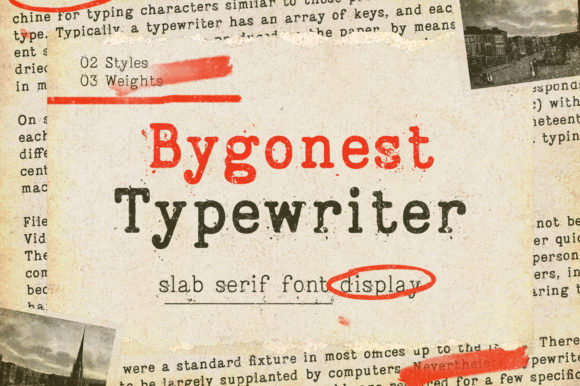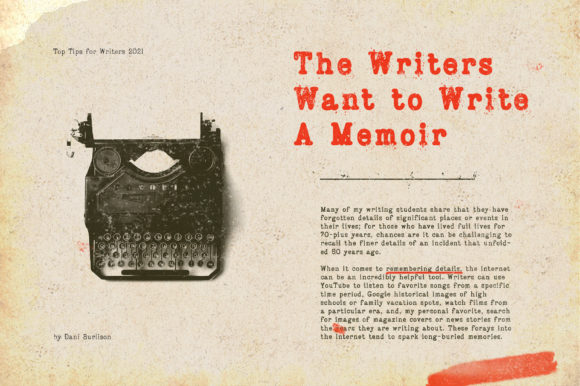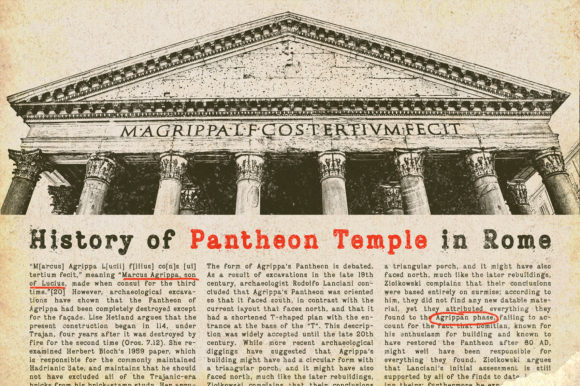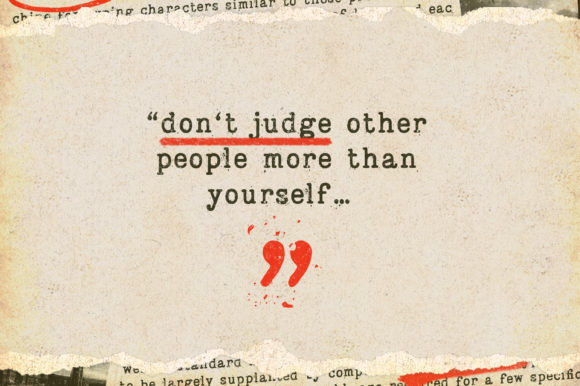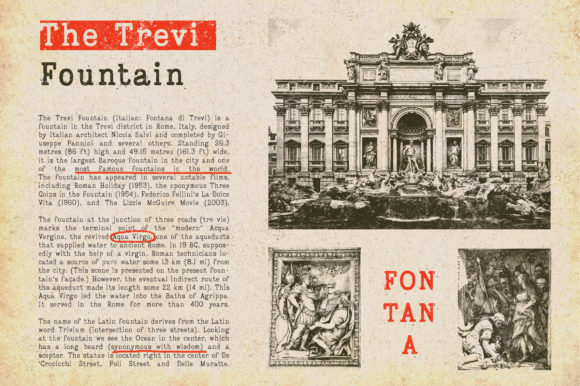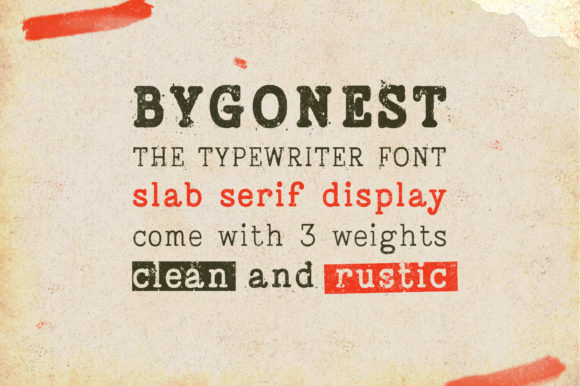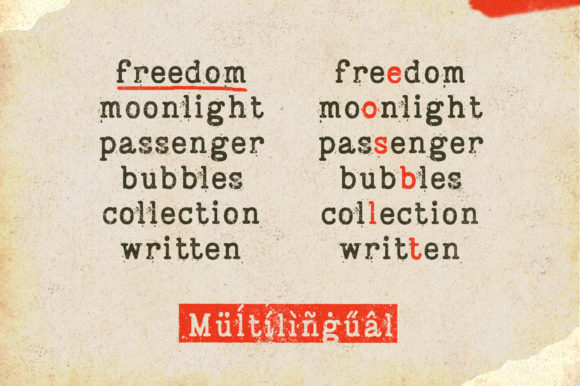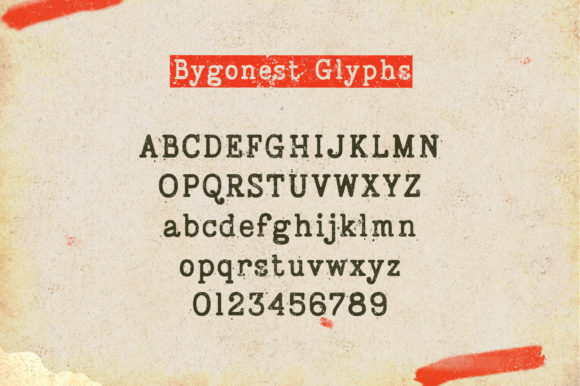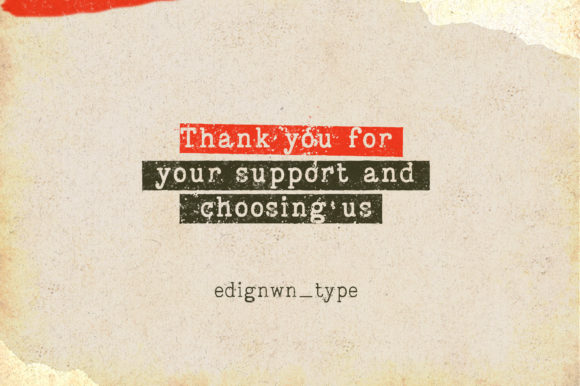
Bygonest
Bygonest: A Vintage and Rustic Slab Serif Font
Bygonest is a distinctive slab serif font that combines vintage styling with a rustic aesthetic. This typeface offers designers a powerful tool for creating impactful typography with a nostalgic touch across various design projects.
Key Features of Bygonest
• Vintage Style: Incorporates design elements reminiscent of classic typography
• Rustic Aesthetic: Offers a weathered, handcrafted look
• Balanced Design: Features a well-proportioned structure, neither too thin nor too thick
• Varied Character: Provides diverse letterforms for added visual interest
• Slab Serif Structure: Maintains the characteristic thick, rectangular serifs typical of slab serif fonts
• Enhancement Quality: Designed to elevate the beauty of various projects
Font Styles
Bygonest comes in multiple styles[2]:
• Clean and Rustic versions
• Three weights: Thin, Regular, and Bold
• Includes alternate characters with different stamp textures
Ideal Uses for Bygonest
Bygonest’s unique characteristics make it particularly well-suited for[2]:
• Newspaper and magazine layouts
• Quote designs
• Logotype creation
• Poster and advertisement layouts
• Label and packaging design
• Branding projects with a vintage feel
When incorporating Bygonest into your designs, consider the following tips:
• Utilize the different weights and styles to create hierarchy and visual interest
• Experiment with the alternate characters to add unique flair to your typography
• Consider the font’s rustic nature when pairing with other design elements
• Take advantage of its balanced design for both headlines and body text
Bygonest is an excellent choice for designers looking to add a vintage and rustic slab serif to their typographic toolkit. Its balanced design and varied character make it stand out in the world of typography. Whether you’re working on editorial layouts, creating vintage-inspired branding, or developing packaging with a nostalgic touch, Bygonest offers the perfect blend of classic style and rustic charm.
Explore how Bygonest can enhance the beauty of your projects with its vintage and rustic edge. From eye-catching headlines to charming body text, this font provides the tools to create impactful and memorable typography that stands out with its unique blend of nostalgia and crafted aesthetics.